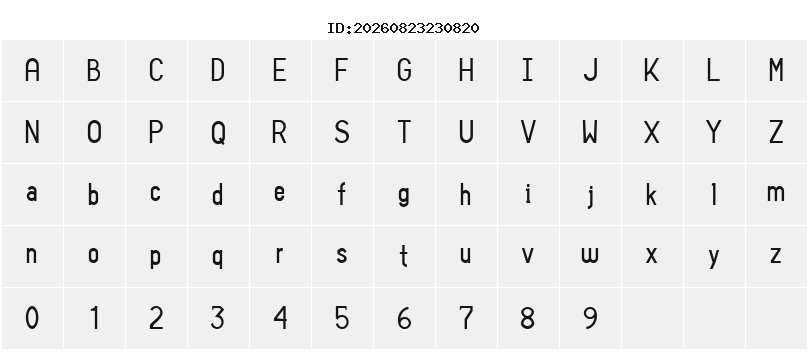
Sans I Am Preview
• Font Name: Sans I Am
• Full Font Name: Sans I Am
• Manufacturer: Michael Tension
About Sans I Am.ttf
Sans I Am.ttf is a modern, elegant sans-serif font designed for ultimate readability and visual harmony. Perfect for branding, headlines, web design, and print materials.